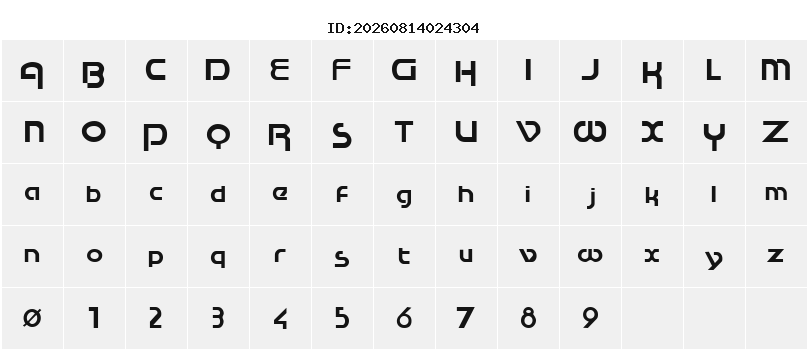
Swish ttnorm Preview
• Font Name: Swish ttnorm
• Full Font Name: Swish Regular ttnorm
About Swish ttnorm.ttf
Swish ttnorm.ttf is a modern, elegant sans-serif font designed for ultimate readability and visual harmony. Perfect for branding, headlines, web design, and print materials.